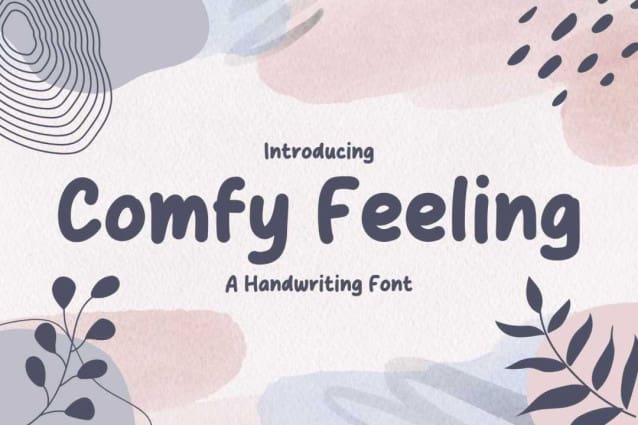
Comfy Feeling Font
Comfy Feeling Font is a handwritten comic/cartoon-style font. Masterfully designed to become a true favorite, this font has the potential to bring each of your creative ideas to the highest level!